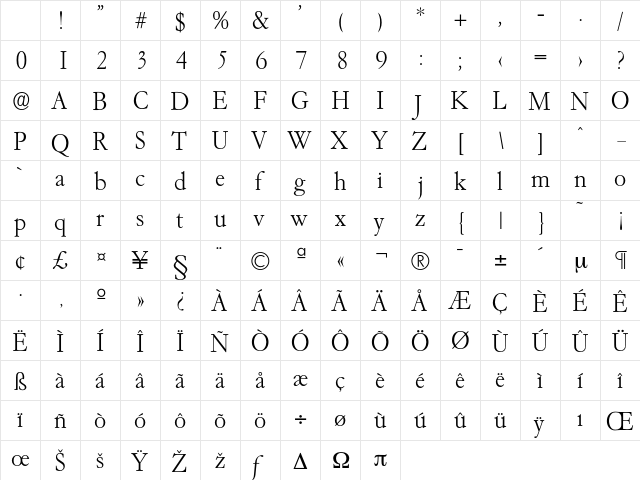
Garemond-Xlight is a composed and adaptable typeface that performs quietly and consistently across a wide range of design contexts. Its slender proportions lend an understated elegance to any composition.